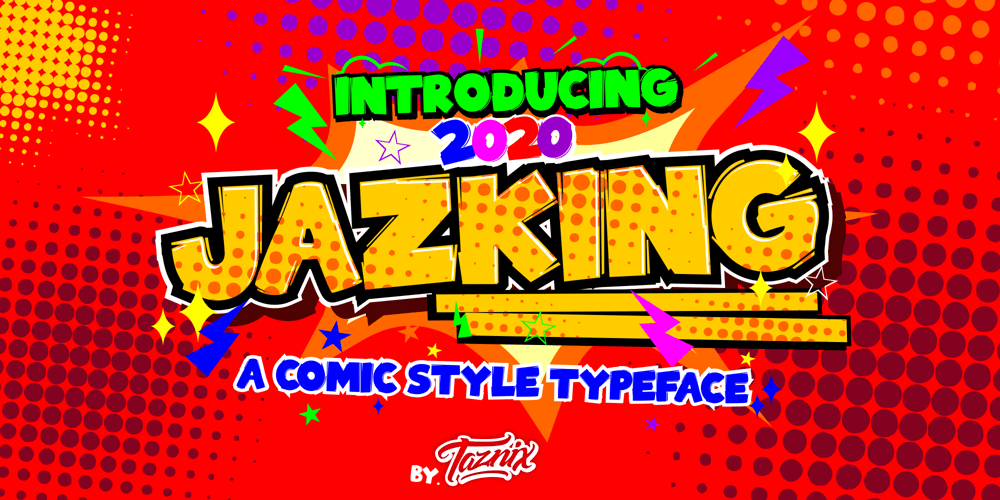
Jazking
Jazking font
Jazking Font Family was designed by Ricky Hartasni and published by Taznix Creative. Jazking contains 1 styles and family package options. Jazking is a bold and fun display font, carefully handcrafted to become a true favorite. Use this gorgeous and unique comic book/cartoon style font to bring any DIY project to life!Jazking is perfect for branding projects, logo, wedding designs, social media posts, advertisements, product packaging, product designs, label, photography, watermark, invitation, stationery and any projects that need Clildren Comic Or cartoon taste.What’s Included : Standard glyphs Ligature Works on PC & Mac Simple installations Accessible in the Adobe Illustrator, Adobe Photoshop, Adobe InDesign, even work on Microsoft Word. PUA Encoded Characters – Fully accessible without additional design software. Fonts include multilingual support for; ä ö ü Ä Ö Ü ß ¿ ¡ Hope you enjoy with our font!Taznix